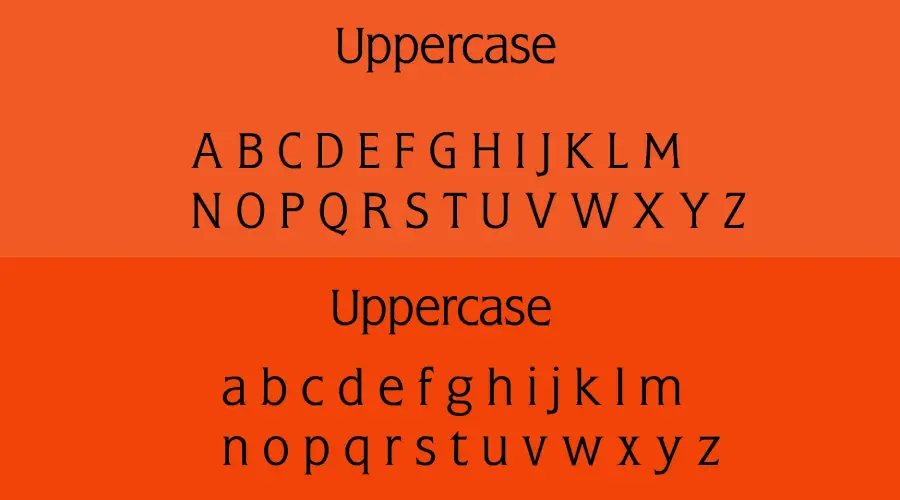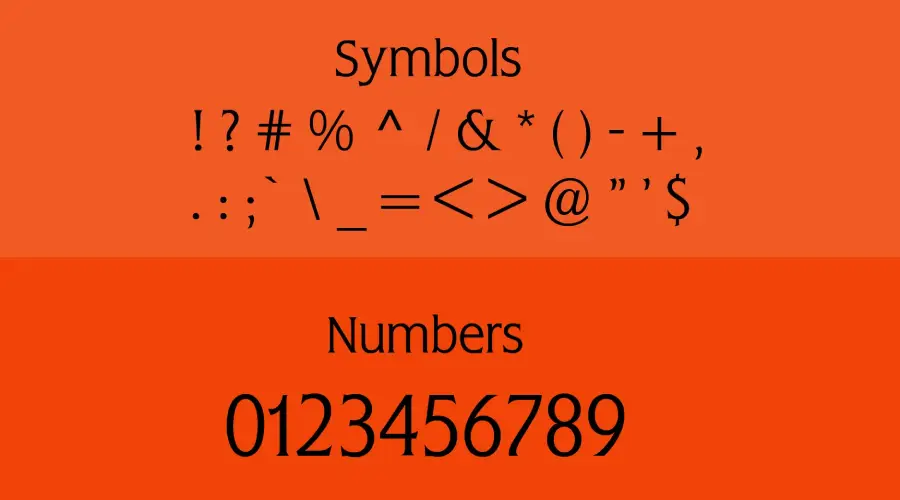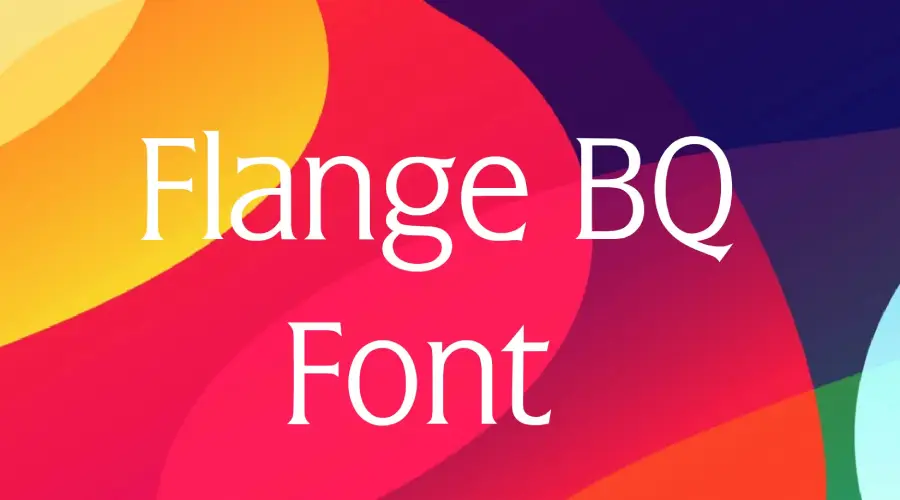
Flange BQ font is a serif font with a strong and industrial feel. It has garnered significant attention for its unique design and versatility. So, let’s take a closer look at this font and learn everything about it.
About Flange BQ Font
Flange BQ font is a serif display typeface. Usherwood designed this font. It has four weights: Light, Regular, Bold, and Heavy. Each weight has a matching italic version, making it a versatile font for various purposes. It is a bold and eye-catching font. It is characterized by its large x-height, geometric shapes, and flanges.
This font was released by Berthold, a German-type foundry founded in 1858 by Hermann Berthold. Berthold is one of the oldest and most respected types of foundries in the world. It produces many famous fonts, such as Akzidenz-Grotesk, AG Book, Block, City, and more.
Flange BQ Font for Effectiveness
You can use Flange BQ font for any project that needs a modern and technical feel. It has been a popular choice among magazine writers, blog authors, and even tattoo artists. Its meticulous design ensures readability without compromising aesthetics.It is an excellent choice for headlines, posters, logos, and branding. It is also an ideal choice for web design, as it can create a strong visual impact. So don’t wait anymore. Download Flange BQ and add it to your collection now.
Flange BQ font combines geometric shapes and sharp angles to create a mechanical edge. It has four weights: Flange BQ Light, Flange BQ Regular, Flange BQ Bold, and Flange BQ Heavy. Each weight has a matching italic version.